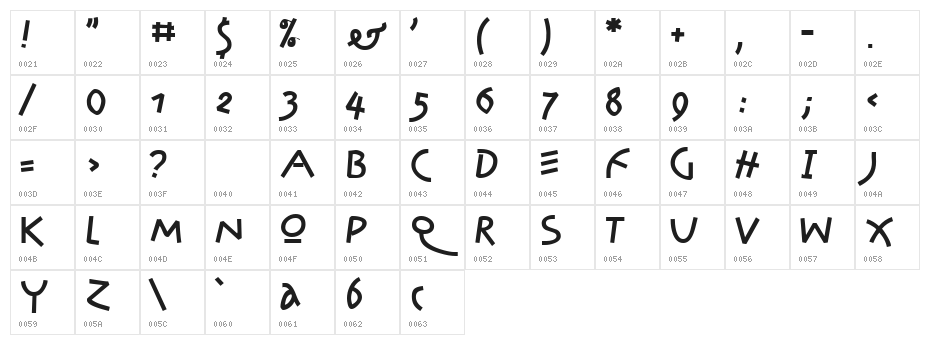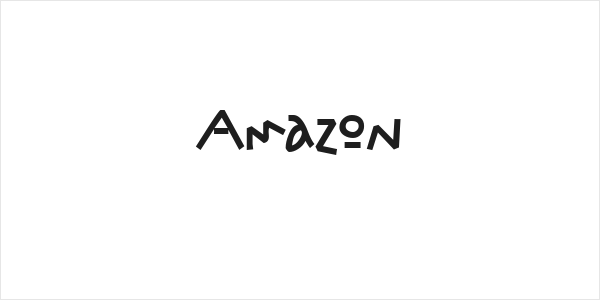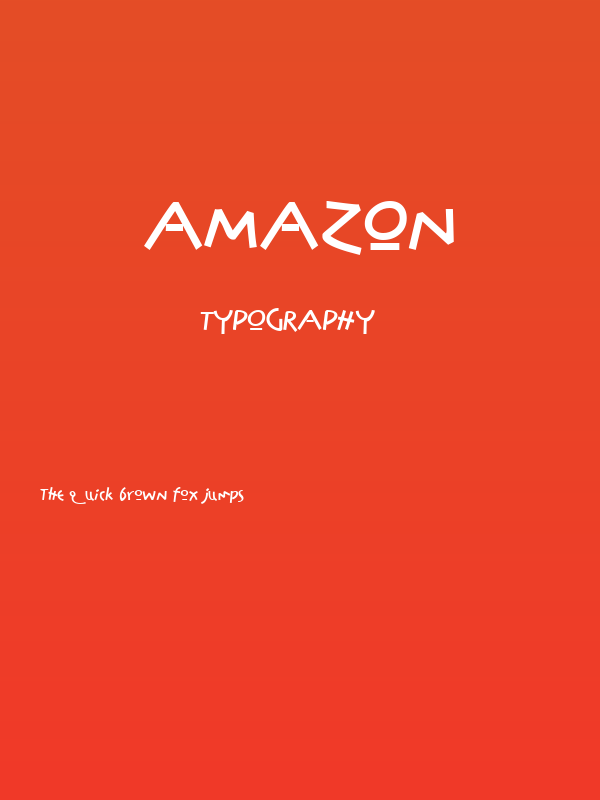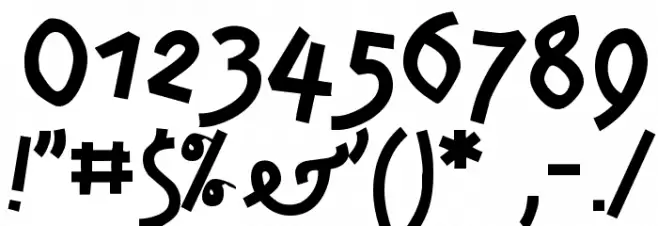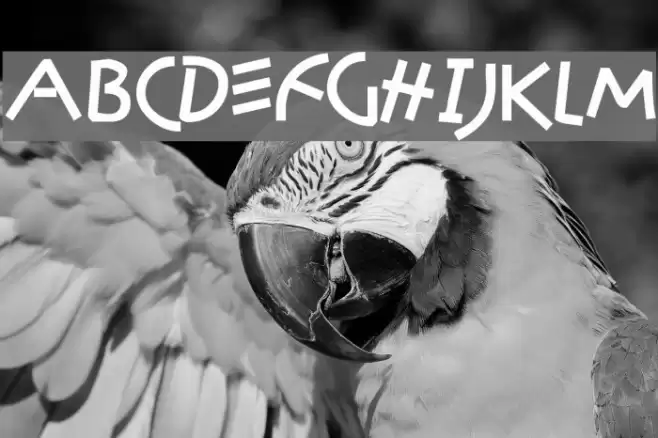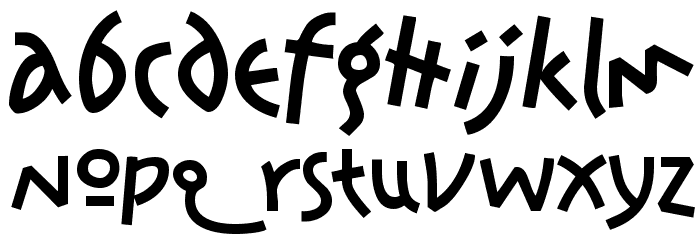
Amazon Font
Amazon Description
This font features a playful and dynamic style with a unique twist on each character. The uppercase letters have a bold presence with angular lines and unexpected curves, creating a sense of movement and energy. The lowercase letters continue this theme with quirky, irregular shapes that add a whimsical touch. Numbers and special characters are equally expressive, maintaining the font's lively personality. The overall design is highly distinctive, making it ideal for creative and unconventional projects.
| Overall Style | Playful, Artistic |
| Proposed Projects | Ideal for children's books, creative branding, playful posters, and artistic designs. |